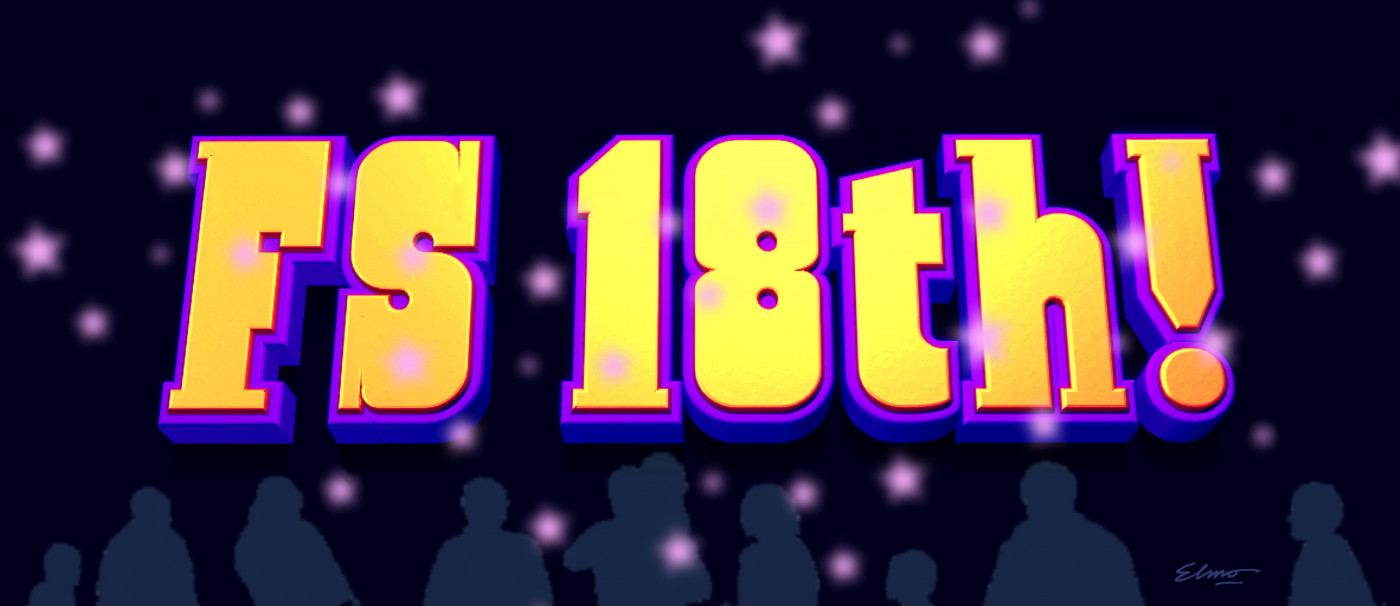
• An old idea updated for this event: FS turns 18!... Revisiting an unfinished project is often a good thing. The experience gained over time usually fills in many of the gaps left by the initial attempts. Btw, the kern is in progress. Hope you like it. Happy Birthday FontStruct!
An old idea updated for this event: FS turns 18!... Revisiting an unfinished project is often a good thing. The experience gained over time usually fills in many of the gaps left by the initial attempts. Btw, the kern is in progress. Hope you like it. Happy Birthday FontStruct!
Very nice celebration of FontStruct's 18th birthday. Your font looks pretty, and the demo is professional. Many happy returns of the day! 10/10
What a nice little blocky serif!
So glad you revisited this font, it turned out wonderfully, and just in time for Fontstruct's birthday~
great work :)) also are you planning to add more glyphs (e.g. cyrillic)?
Happy belated birthday, FS and congrats on this pretty small-countered heavy slab serif, @elmoyenique!